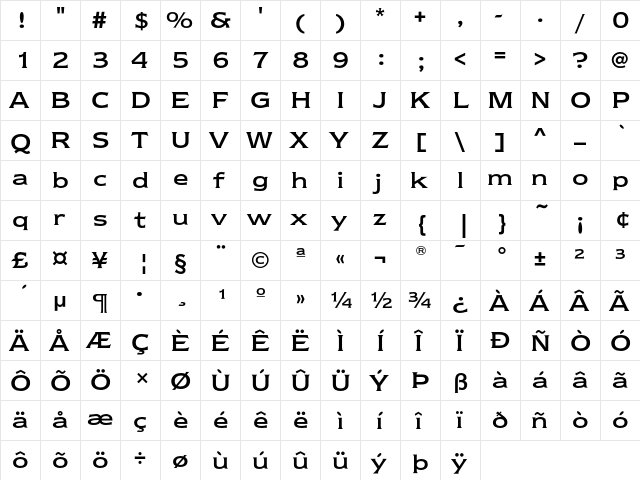
NewtextEF Regular
Design Context for NewtextEF Typeface
NewtextEF is a composed and adaptable typeface that performs quietly and consistently across a wide range of design contexts.